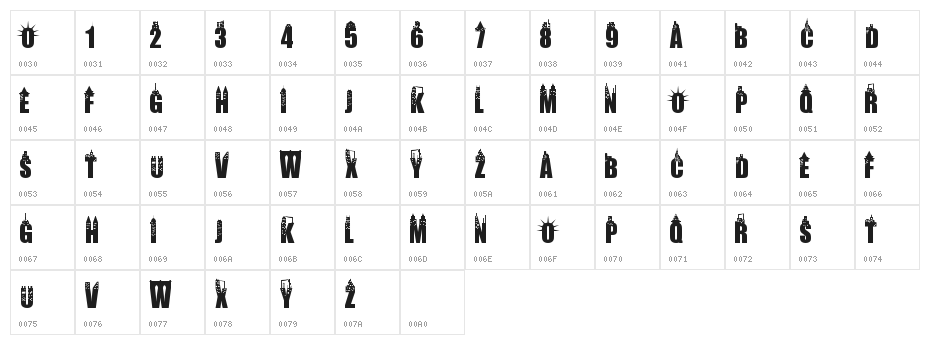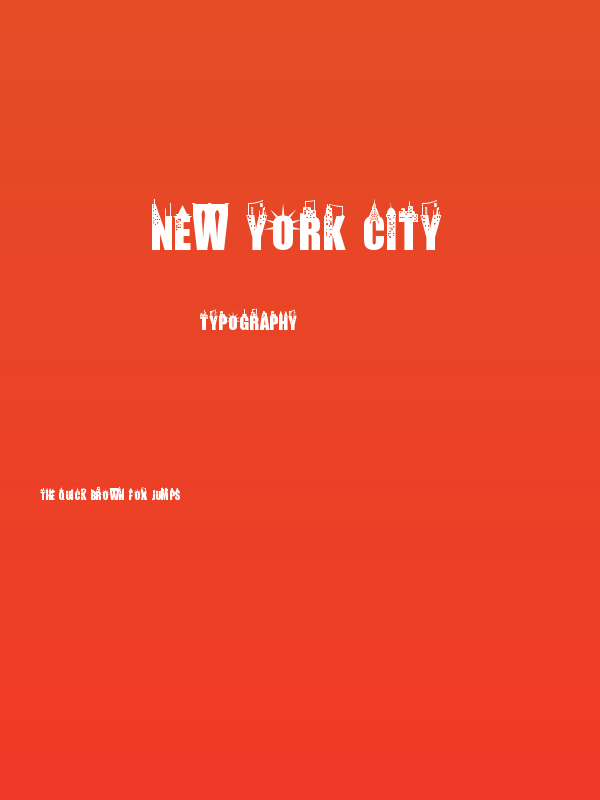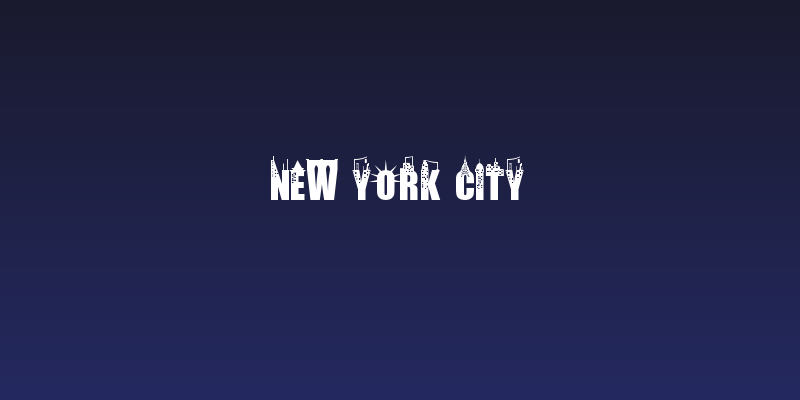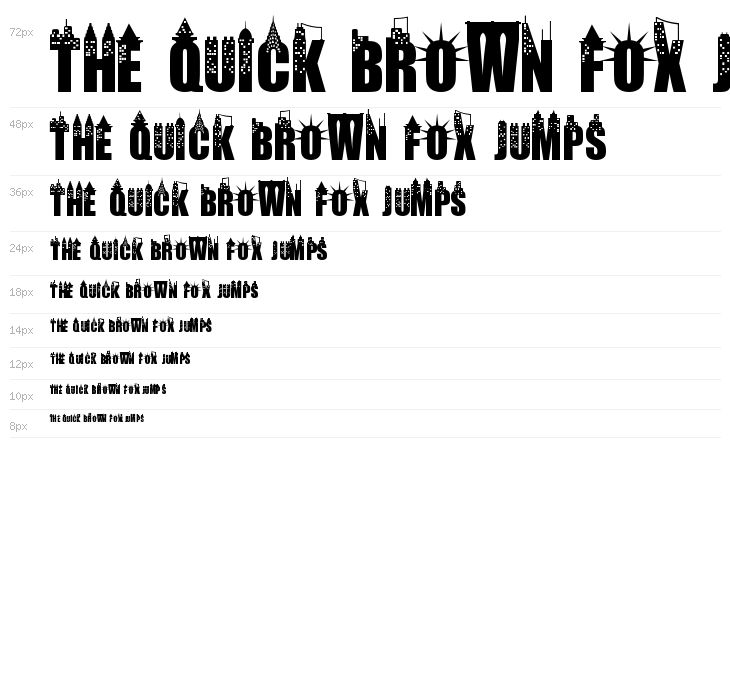
New York City Font
New York City Description
This font is a bold, decorative typeface that incorporates iconic elements of New York City's skyline into each character. The uppercase letters are designed with skyscraper silhouettes, complete with windows and antennas, giving a unique urban feel. The numbers and special characters also feature similar architectural details, enhancing the metropolitan theme. This font is perfect for projects that aim to capture the essence of New York City, offering a visually striking and thematic representation. Its bold and blocky style ensures high visibility and impact, making it suitable for headlines and display purposes.
| Proposed Projects | Ideal for city-themed posters, travel brochures, event invitations, and branding materials that emphasize an urban or New York City theme. |